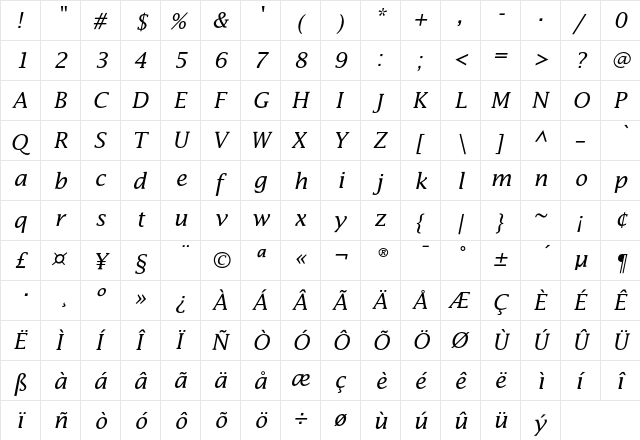
LucidaEF Italic
Design Context for LucidaEF Typeface
LucidaEF offers clean, dependable letterforms without strong stylistic allegiance, making it a practical choice for designers who need flexibility. The dynamic lean of this cut emphasises speed and emphasis in any layout.
Pro Tip: Use LucidaEF for emphasis, pull quotes, and subheadings where its slanted energy can add rhythm to the layout.